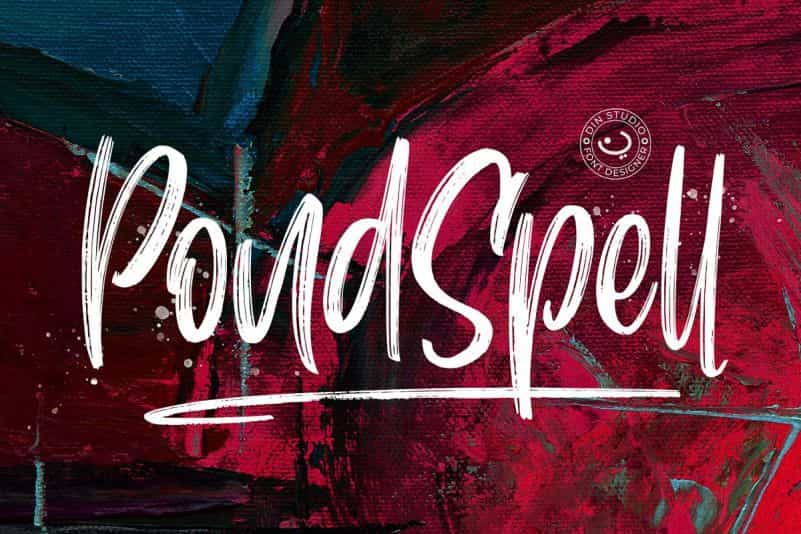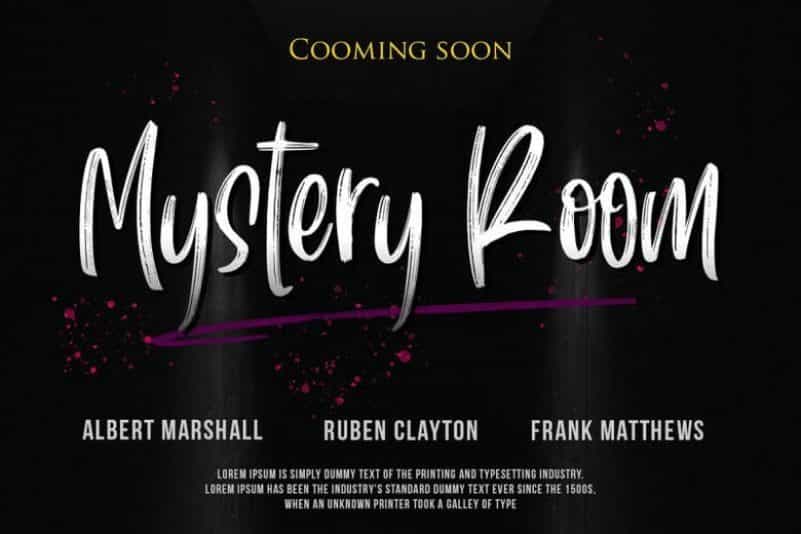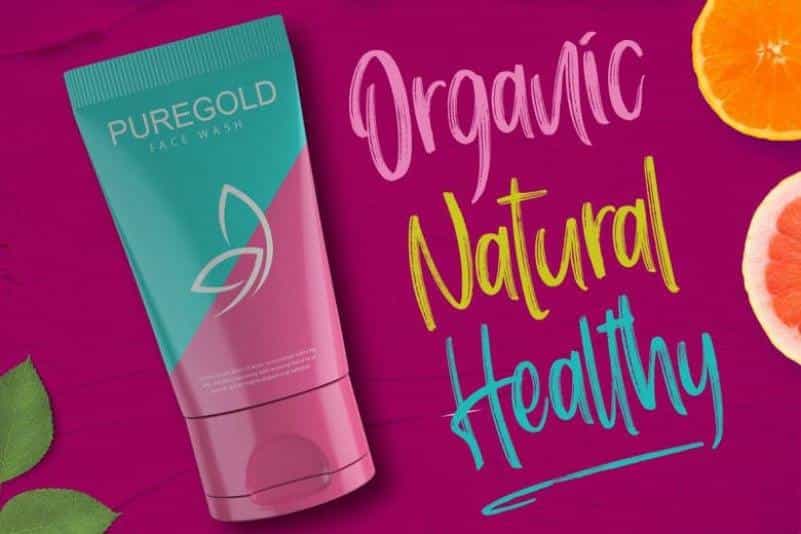
Introducing the Pondspell Font! This is a Handdrawn drybrush font, which has been carefully designed and it is full of imagination. Rough textures that are typical for this style can be seen in the letters. It is made and spread by Din Studio.